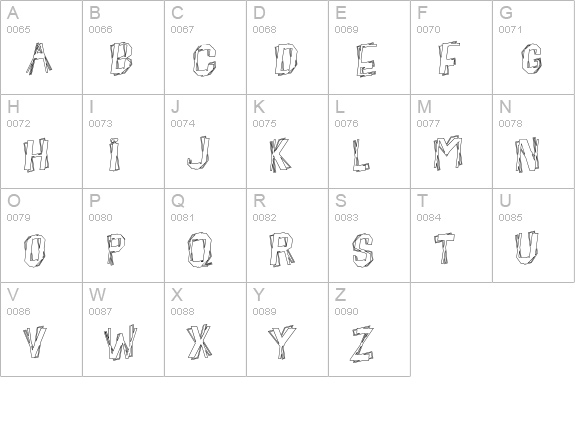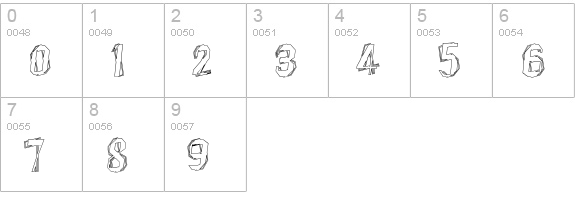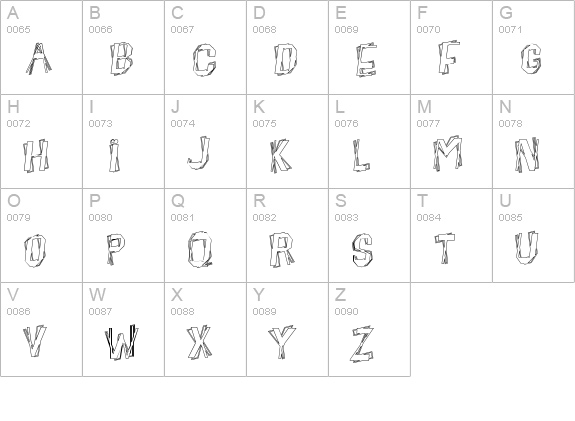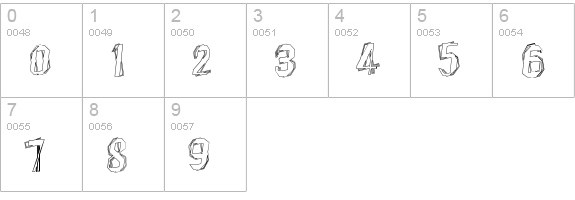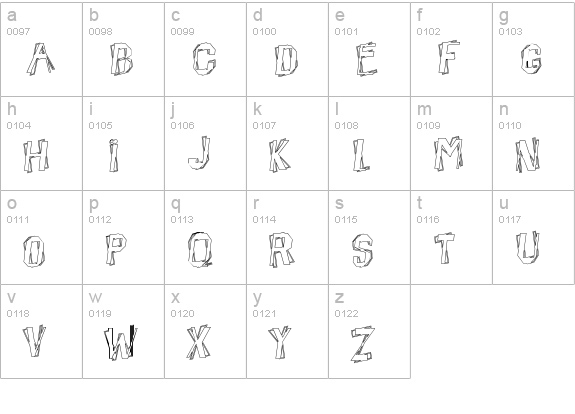
BeatnikHayseed Font Details
BeatnikHayseed font is a whimsical and playful typeface that exudes a carefree and retro vibe. Its quirky and hand-drawn style adds a unique touch to any design project, making it perfect for a variety of creative endeavors. With its mix of bold and thin lines, this font strikes a perfect balance between fun and sophistication. What makes BeatnikHayseed font even more appealing is that it is available for free download at FontsMarket.com. This means you can easily access this charming typeface and use it in your personal or commercial projects without any cost. Add a touch of personality and character to your designs with BeatnikHayseed font today!